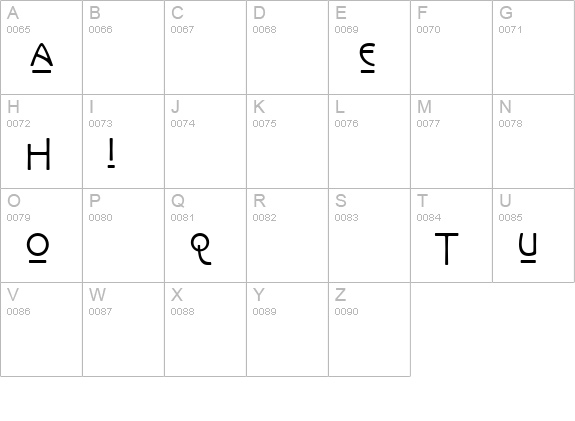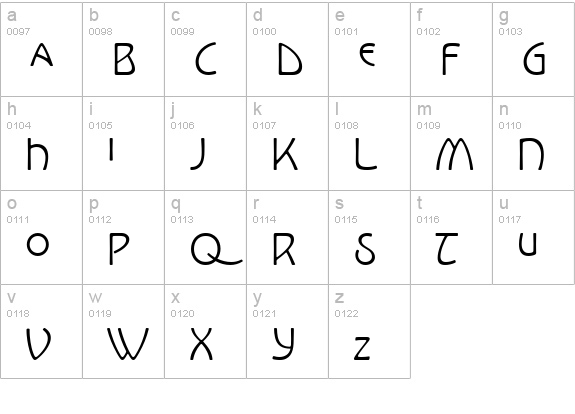
KoloAlternates Font Details
KoloAlternates font is a delightful and versatile typeface that brings a touch of elegance and charm to any design project. Its sleek lines and modern aesthetic make it perfect for a wide range of applications, from branding to editorial design. With a set of stylish alternate characters, KoloAlternates offers endless creative possibilities to elevate your typography game. The best part? KoloAlternates font is available for free download at FontsMarket.com. Whether you're a seasoned designer looking to refresh your font collection or a newcomer eager to experiment with new typefaces, KoloAlternates is a must-have addition to your toolkit. Don't miss out on this fantastic font - download it today and let your creativity soar!